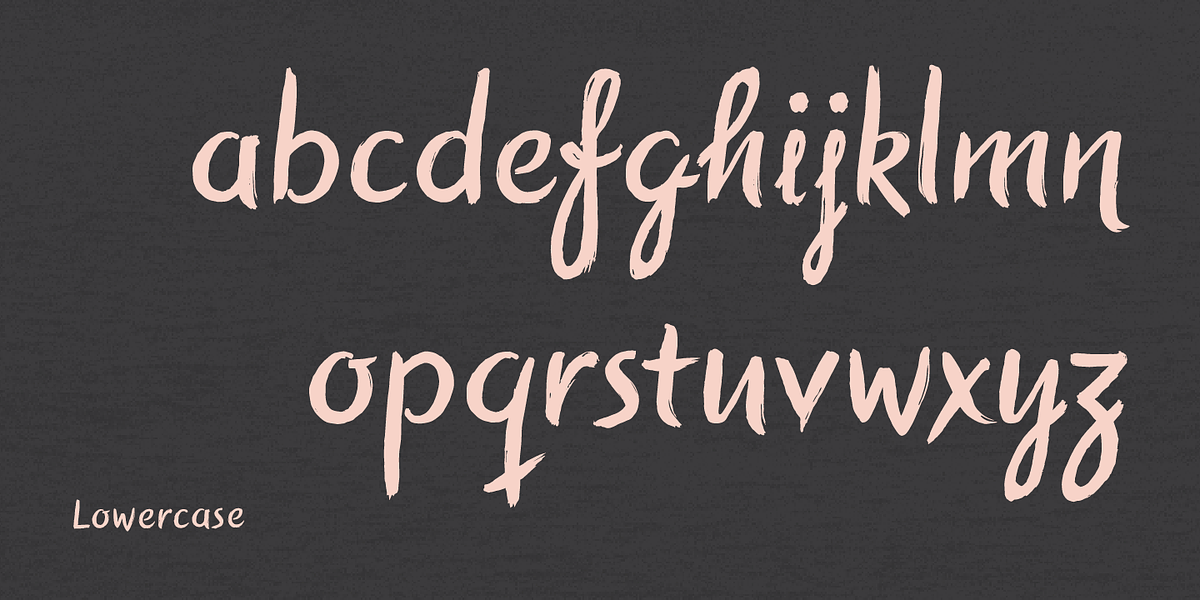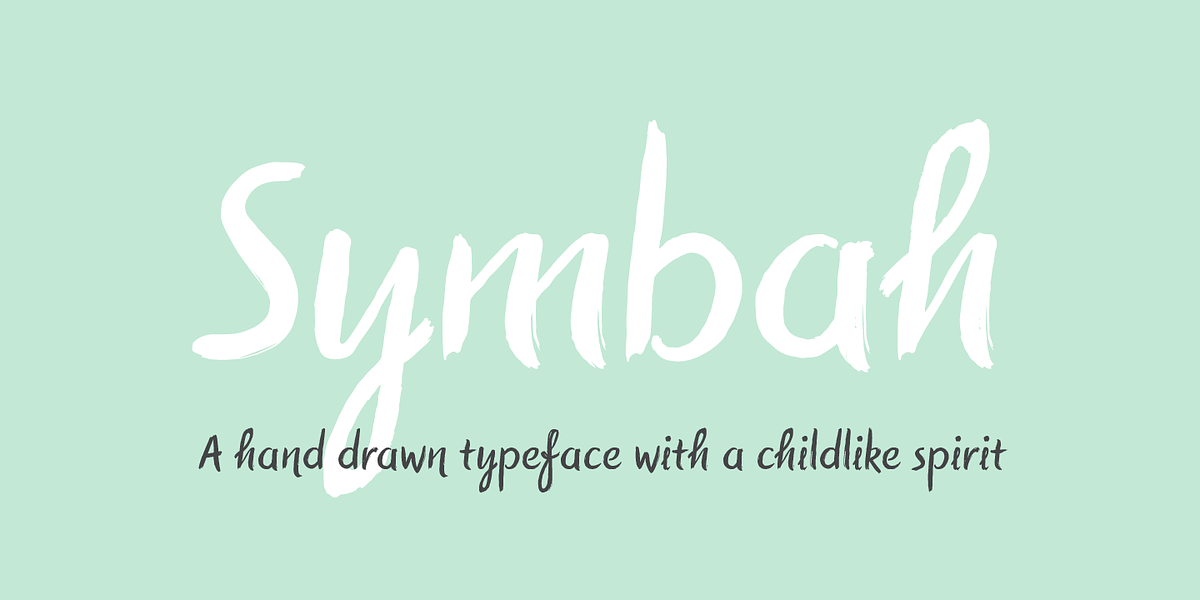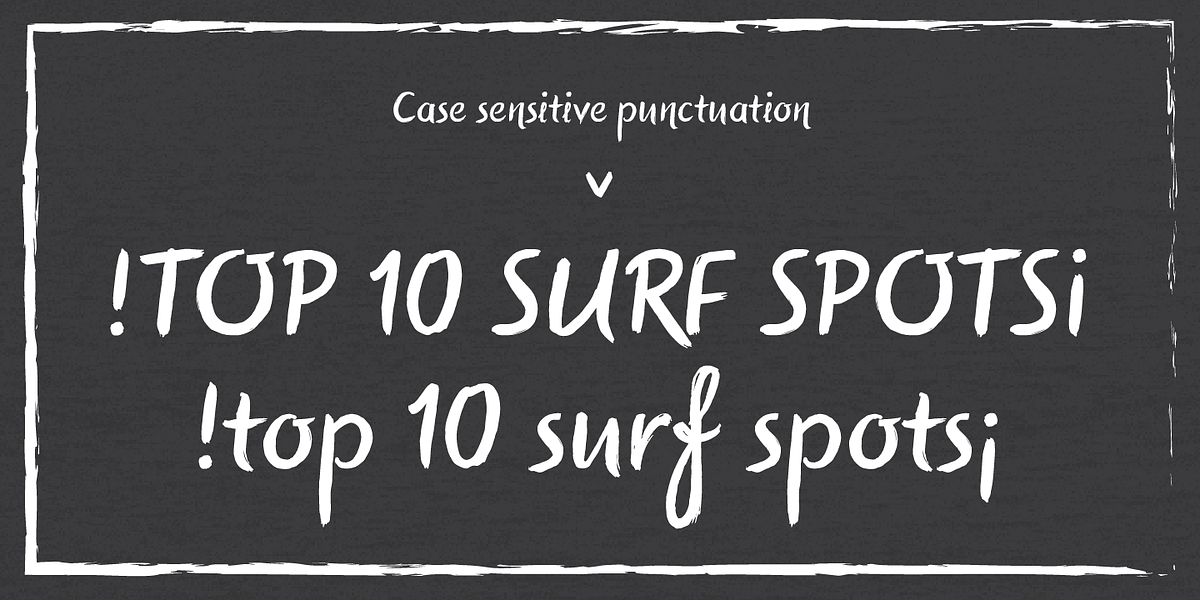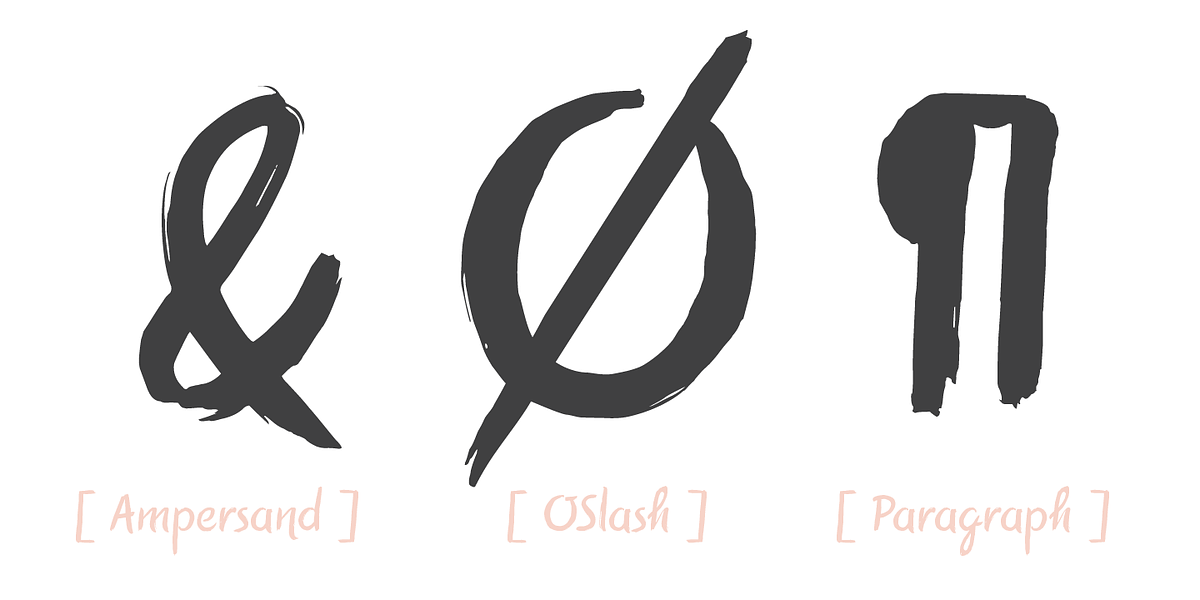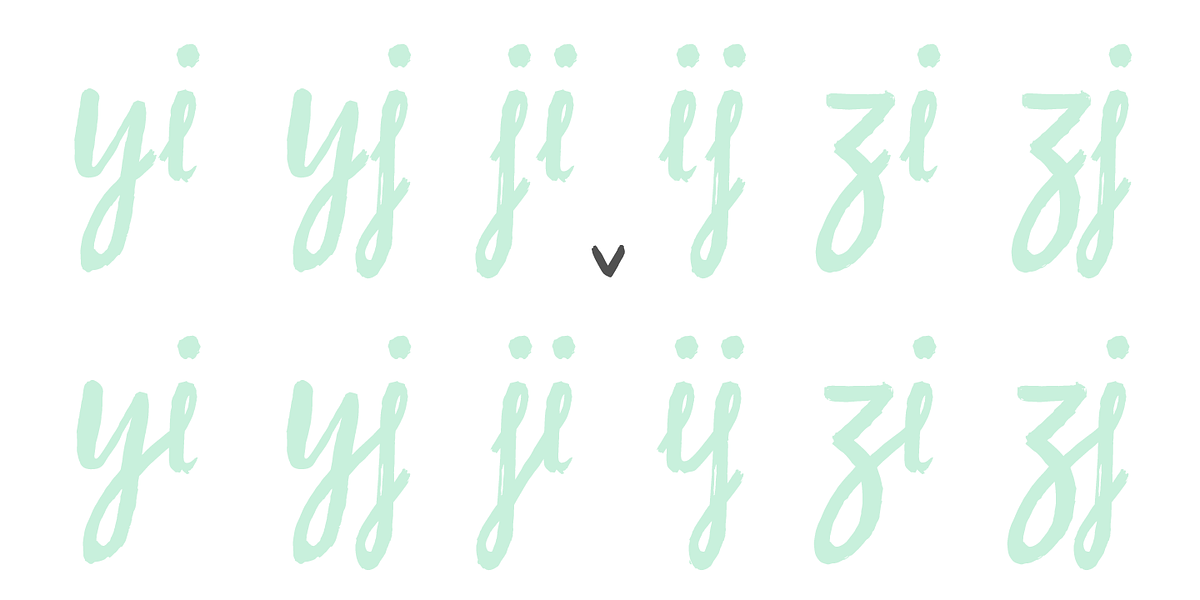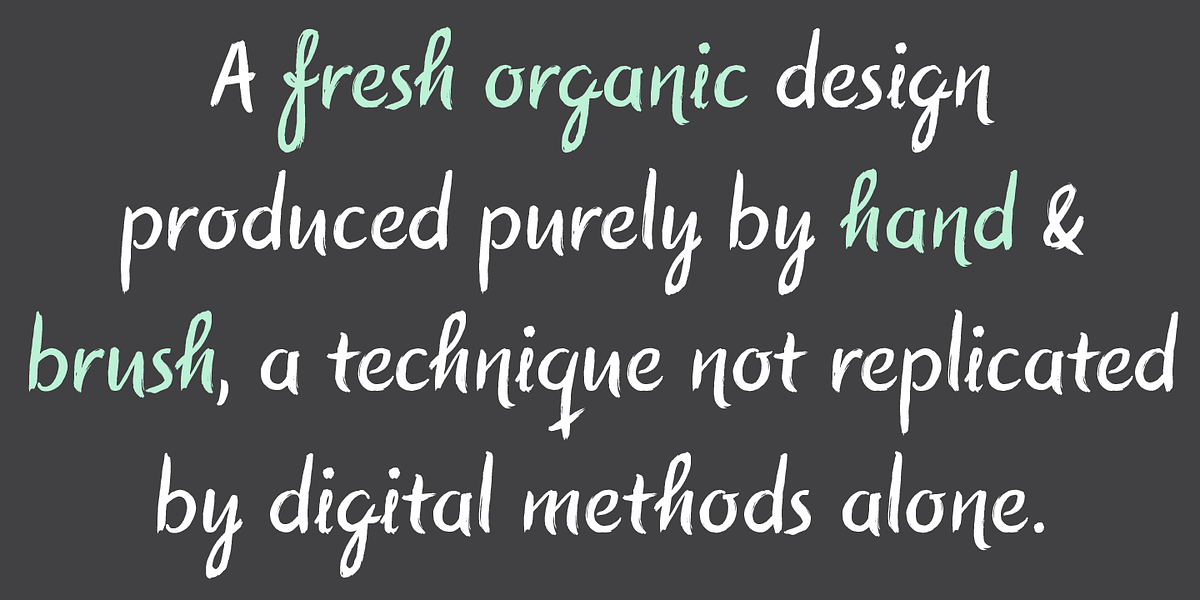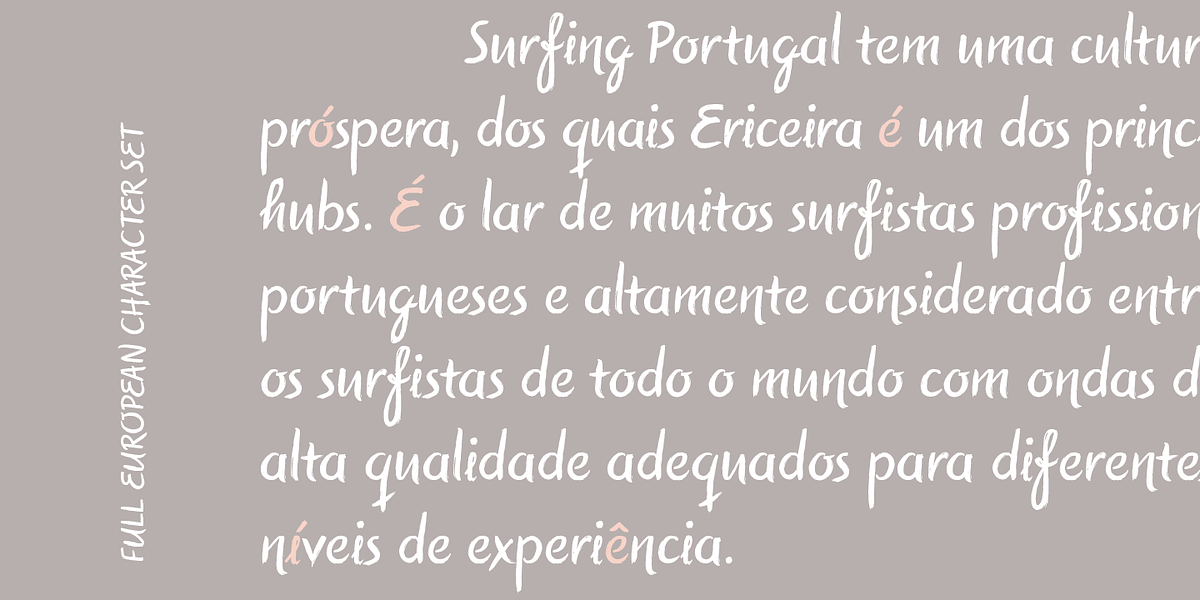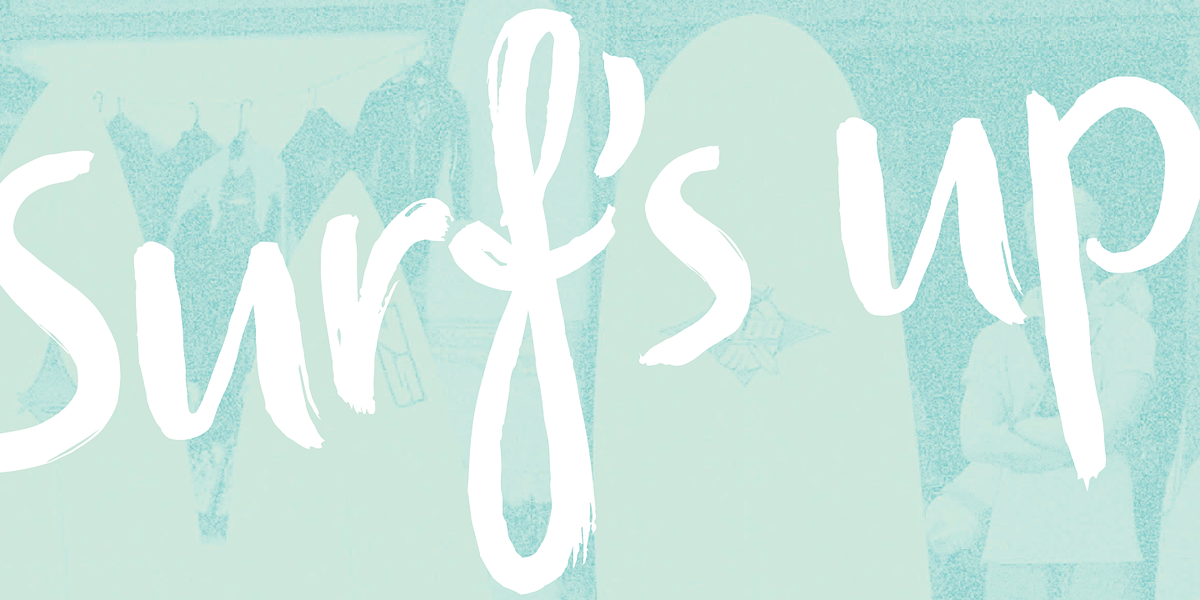
Symbah
Symbah is a hand-drawn brush script font designed to evoke a sense of childlike fun and creativity. Created with traditional brush and ink techniques, the typeface retains a natural, organic quality that digital methods alone cannot replicate. Its rough, hand-crafted appearance lends itself well to projects requiring a unique and imaginative touch.